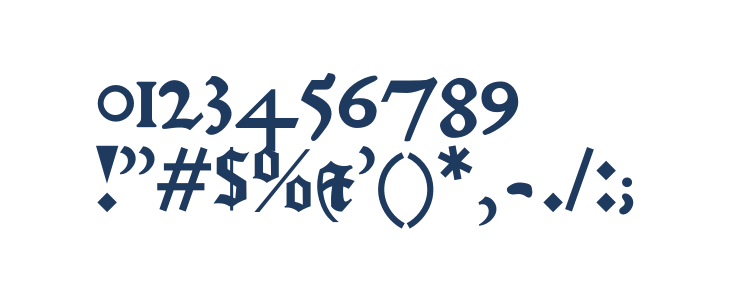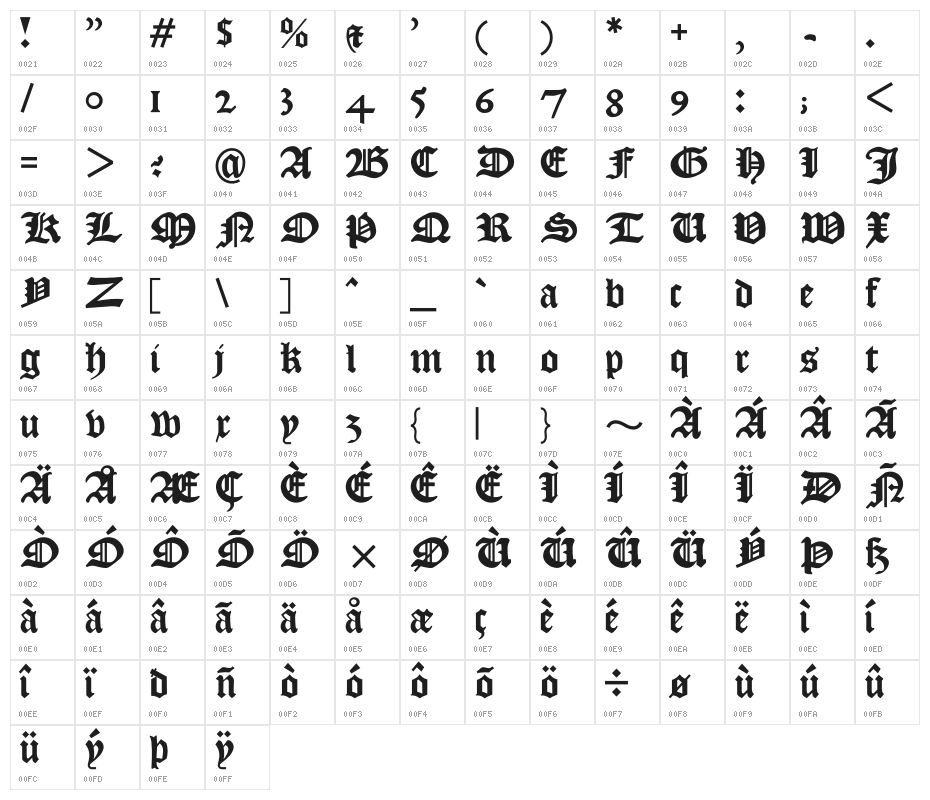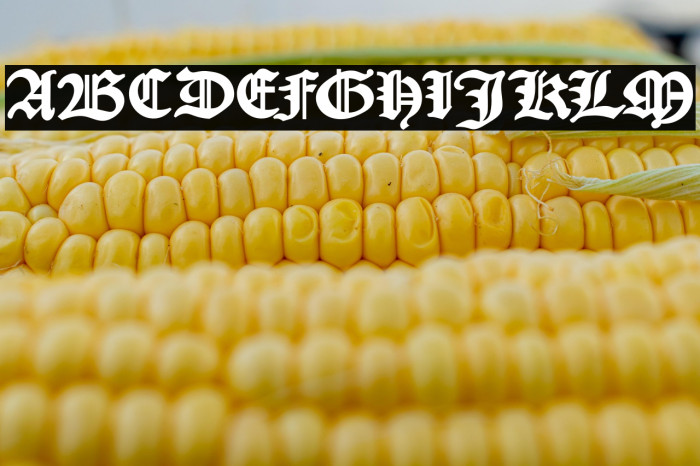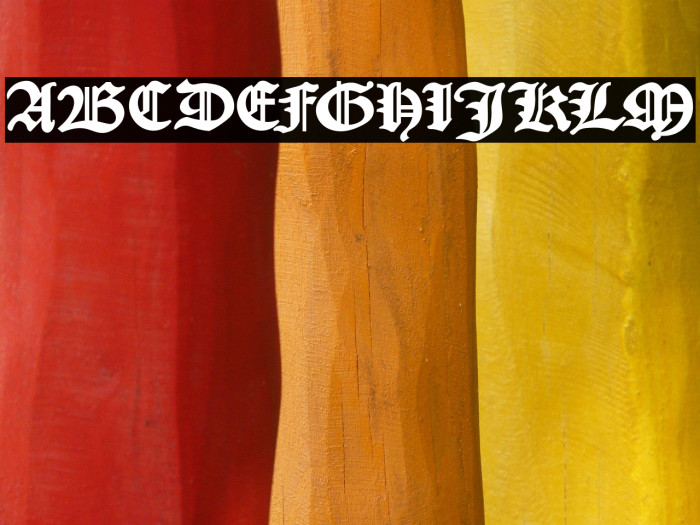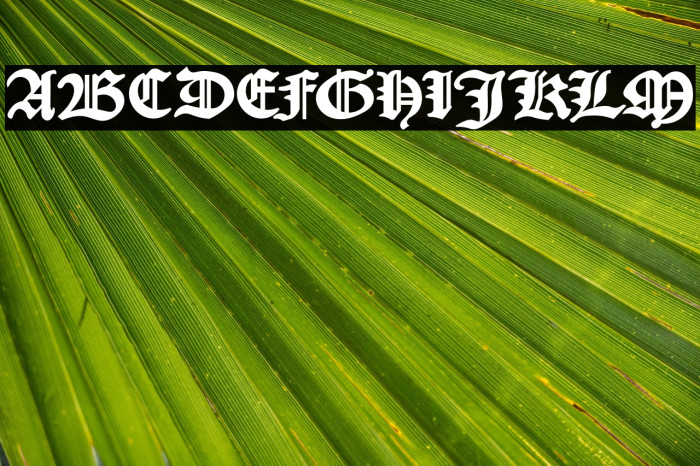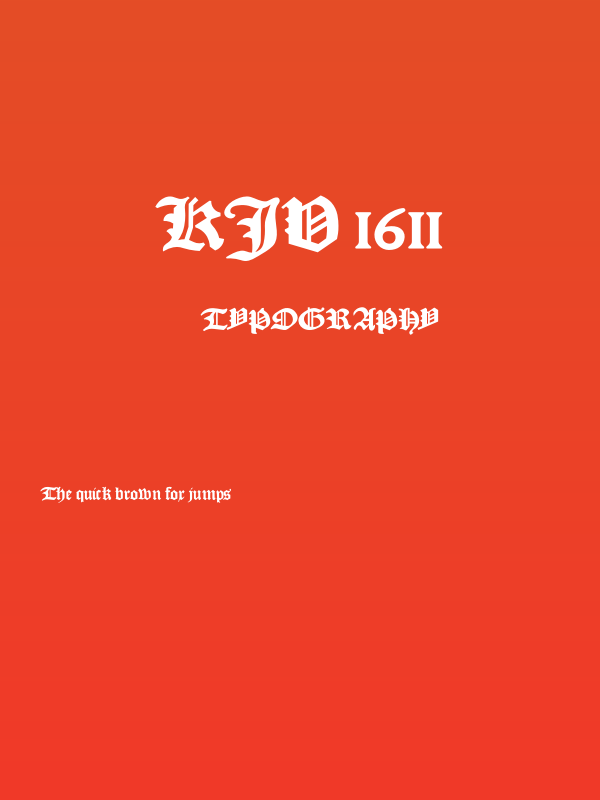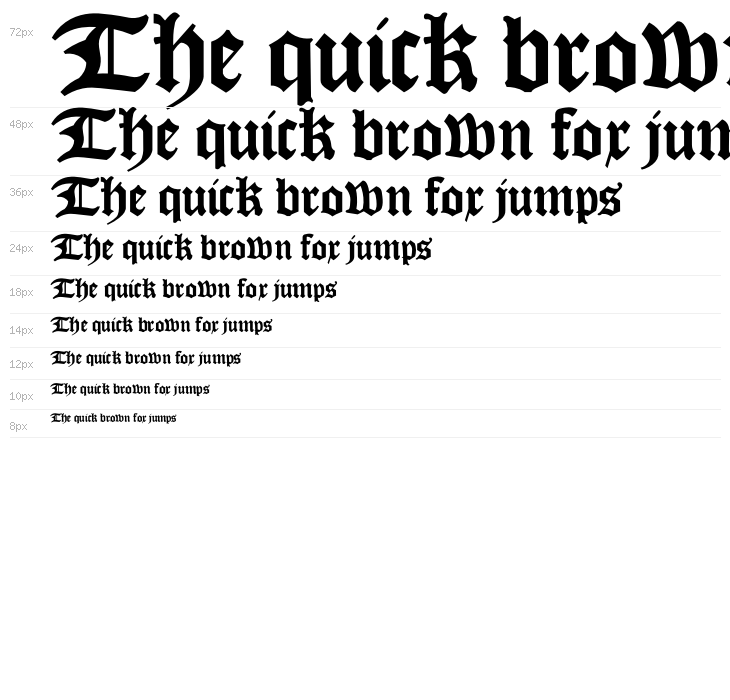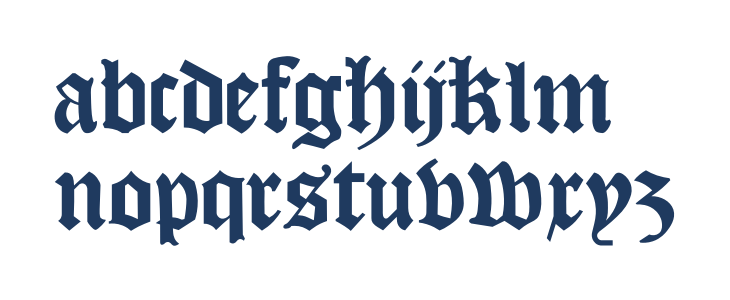
KJV 1611 Font
KJV 1611 Description
This font embodies a classic and historical style, reminiscent of traditional Blackletter typefaces. The characters are ornate and intricate, featuring sharp angles and dramatic curves that convey a sense of formality and elegance. The uppercase letters are particularly elaborate, with decorative flourishes that enhance their visual impact. The lowercase letters maintain a consistent style, offering a cohesive look across the alphabet. Numerals and special characters are designed with the same attention to detail, ensuring uniformity throughout. This font is ideal for projects that require a touch of sophistication and historical authenticity.
| Use Case | Headlines, Logos, Decorative text |
| Proposed Projects | Suitable for historical documents, certificates, book covers, and branding that requires a traditional and elegant touch. |